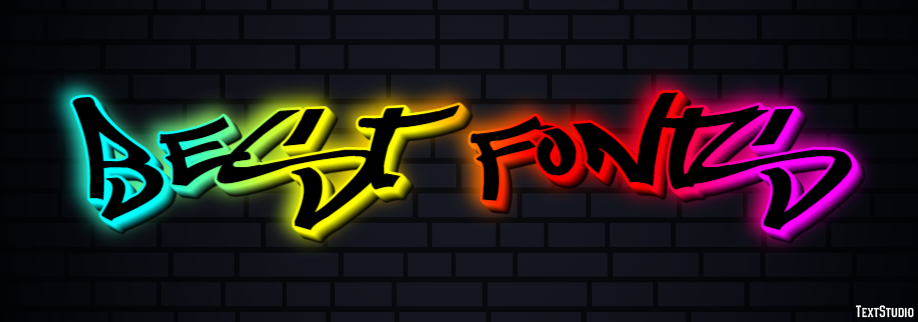
Graffiti text Style effect
Transform your plain text into captivating works of art with our innovative font style text effect generator. Unleash your creativity with a vast collection of graffiti, neon, and street-inspired fonts, allowing you to spray your words with a hipster edge. Elevate your messages with vibrant paint-like effects and mesmerizing light patterns.